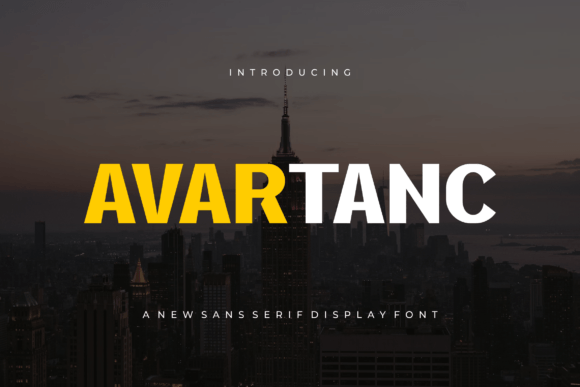
Discover the Bold and Authentic Avartanc Font
As a designer, I’ve had my fair share of struggles when it comes to finding the perfect font for a project. I recall working on a branding project for a trendy clothing line, spending hours scrolling through font libraries, and still not finding that one font that captured the essence of the brand. That’s when I stumbled upon the Avartanc Font – a modern, bold, and authentic display font that instantly caught my attention.
A Personal Review of Avartanc Font
So, what makes Avartanc Font stand out from the rest? Here are a few things I love about this font:
• ✨ Unique and bold design: Avartanc Font has a distinctive look that sets it apart from other fonts. Its bold and modern design makes it perfect for creating eye-catching headlines and titles.
• ✅ Highly versatile: This font is suitable for a wide range of contexts, from logo design to t-shirt printing, and even more.
• ✅ Easy to read: Despite its bold design, Avartanc Font remains easy to read, even at smaller font sizes.
While Avartanc Font is an excellent choice for many design projects, it’s not without its quirks. Here are a few things to keep in mind:
• 🤔 Limited use for body text: Due to its bold design, Avartanc Font may not be the best choice for body text or longer paragraphs.
• ⚠️ May not be suitable for formal projects: The font’s modern and bold design may not be suitable for more formal projects or those requiring a traditional look.
The Designer Inspiration Behind Avartanc Font
Avartanc Font was designed with the goal of creating a modern and bold display font that would stand out in a crowded design landscape. The font’s designer drew inspiration from urban landscapes, modern architecture, and cutting-edge technology. The result is a font that’s both authentic and attention-grabbing.
What is Avartanc Font? Avartanc Font is a modern and bold display font suitable for branding projects, logos, t-shirt printing, and more.